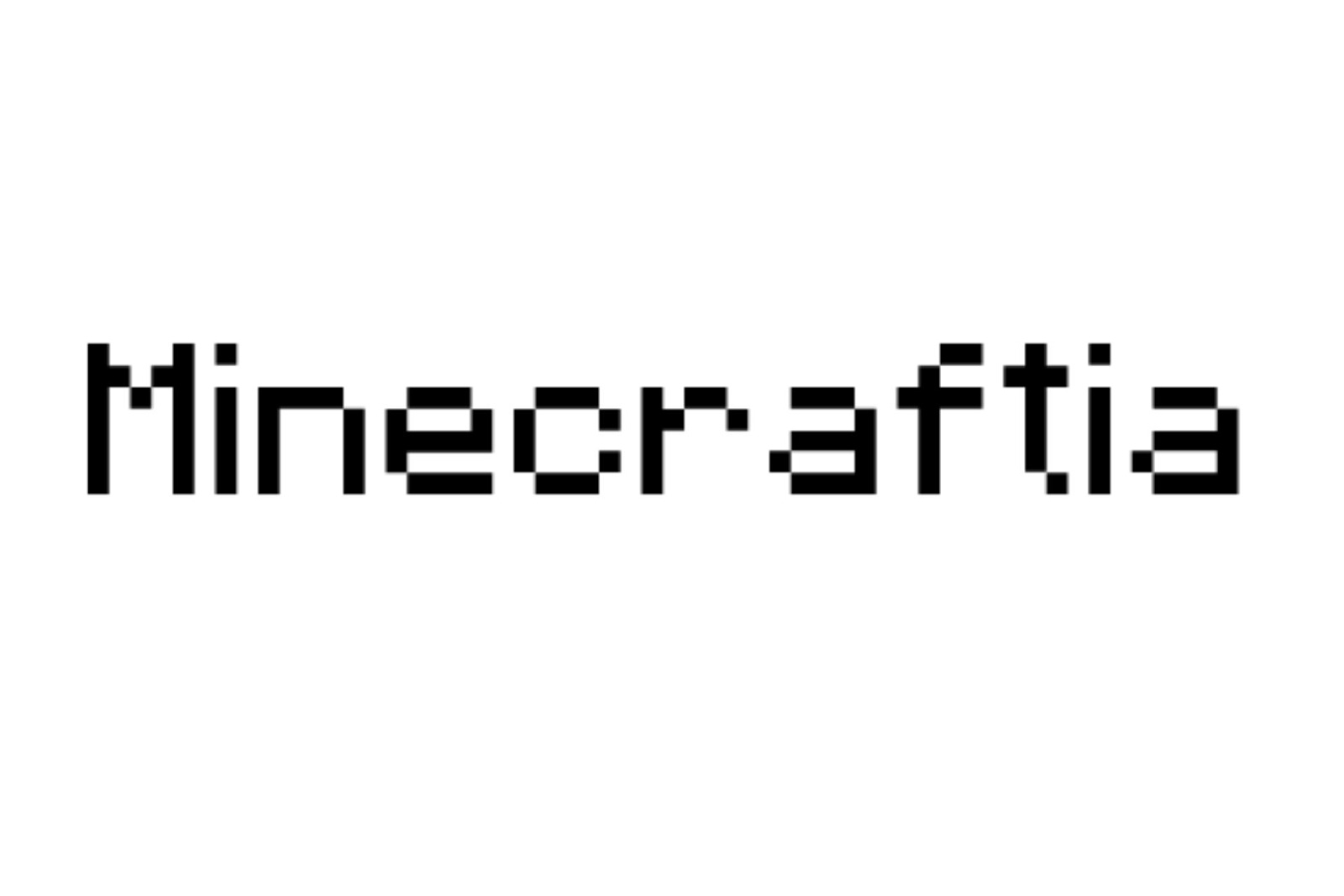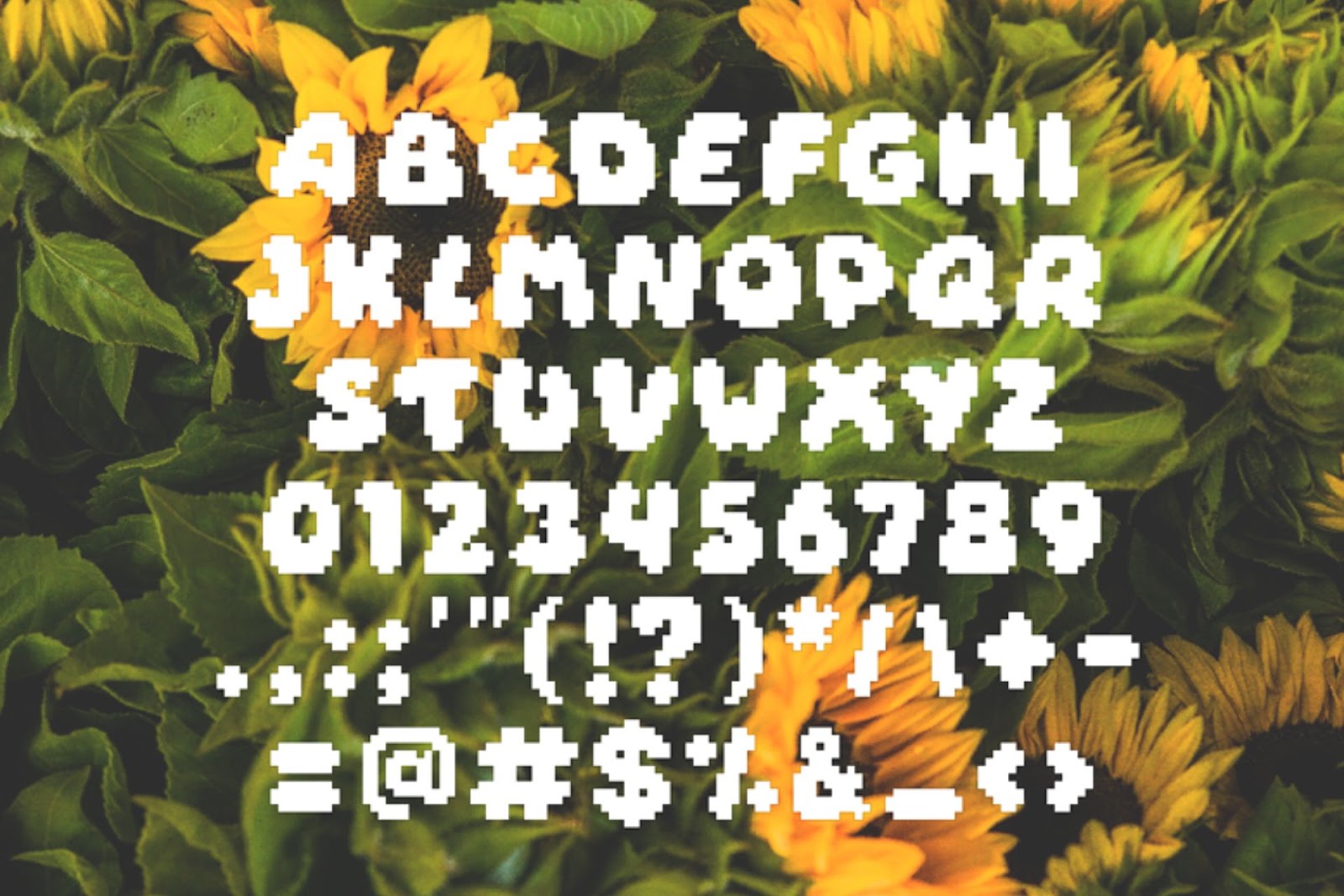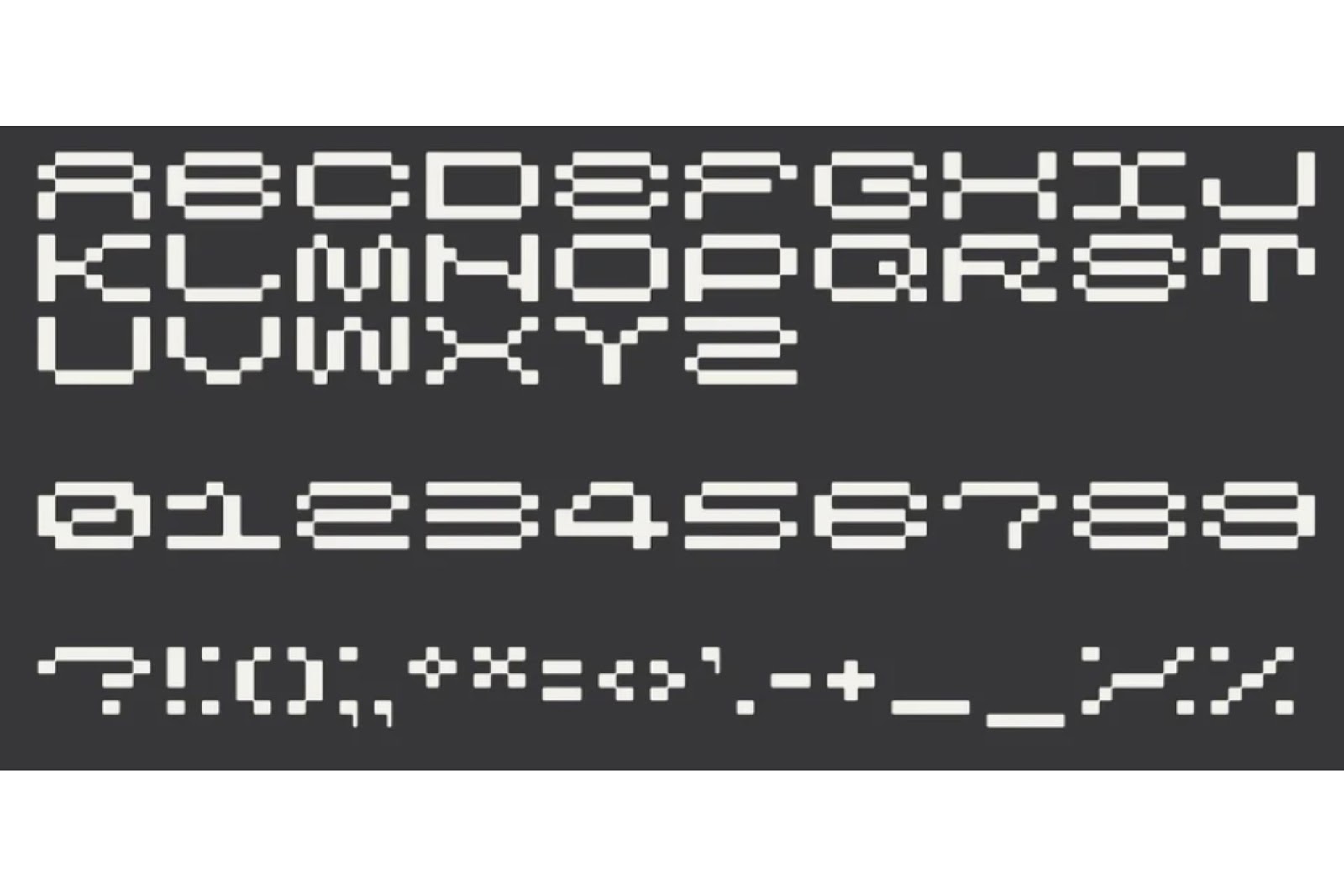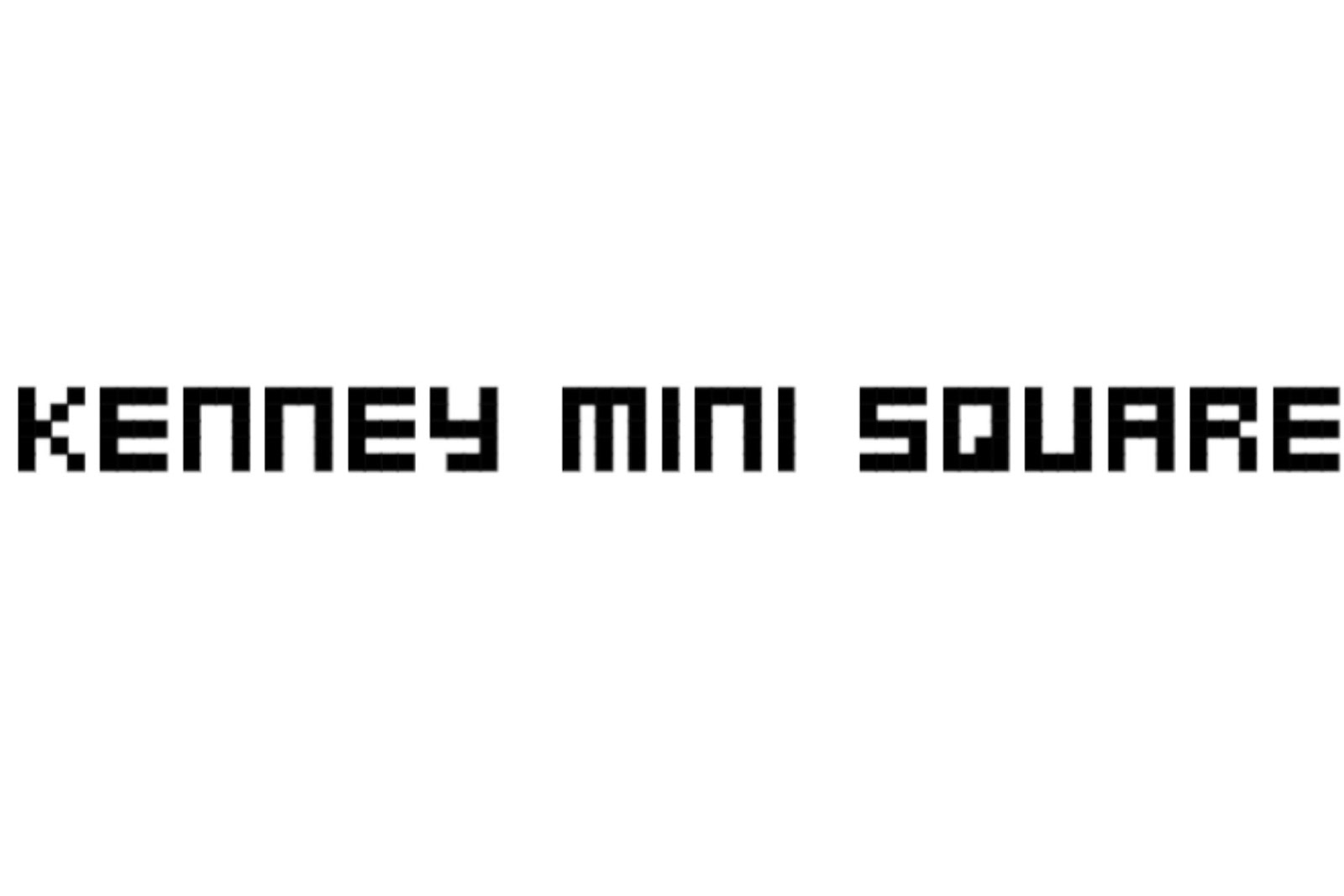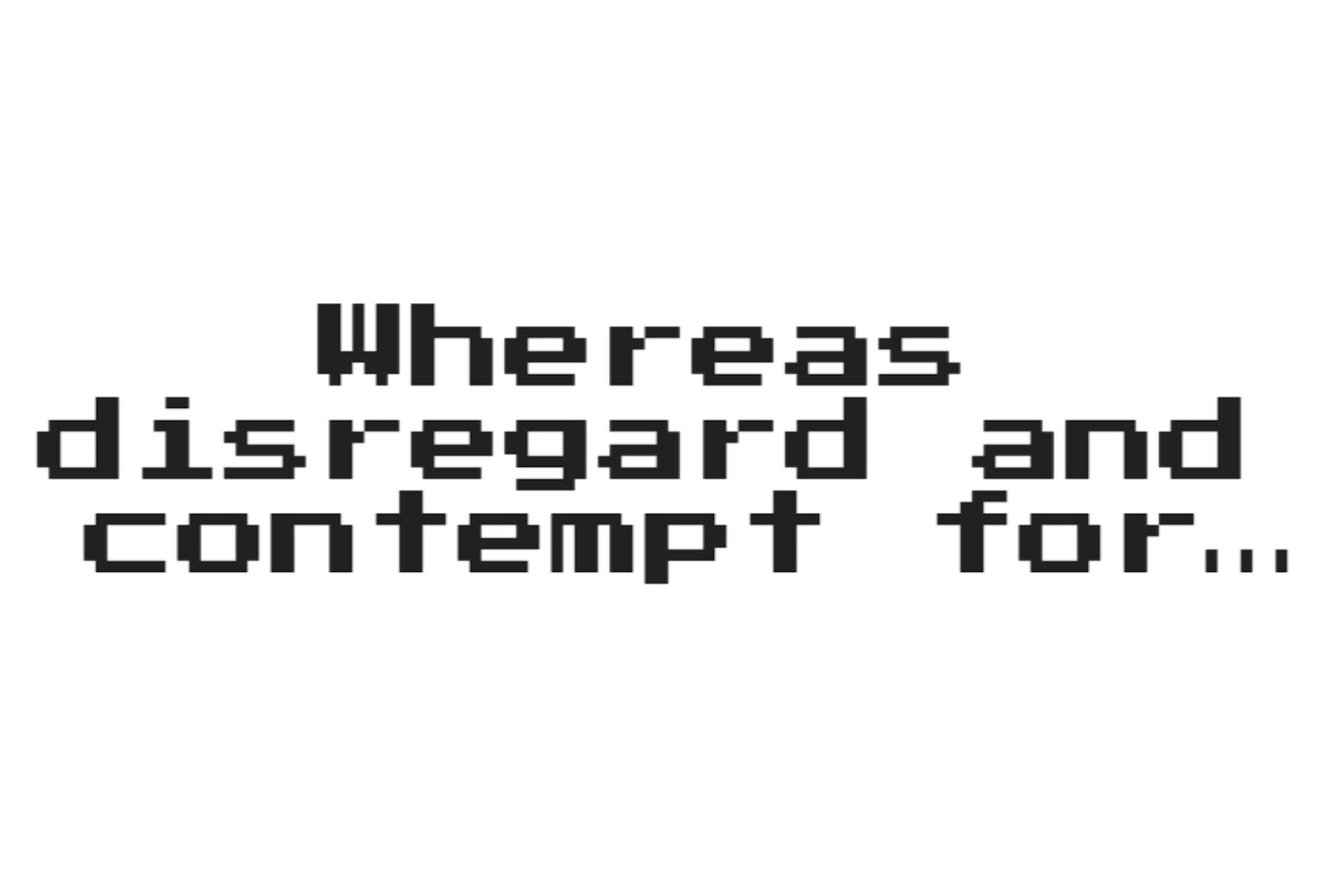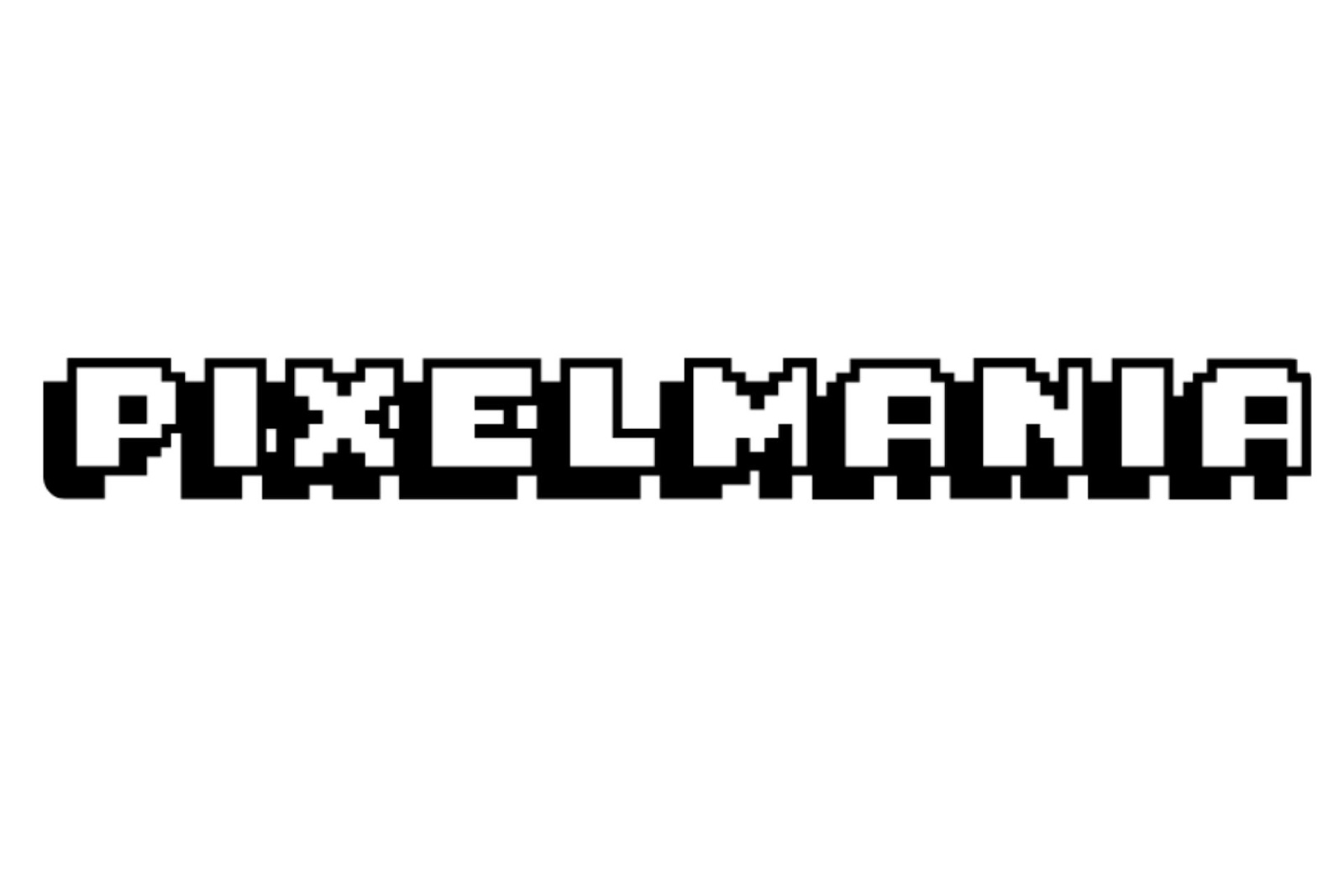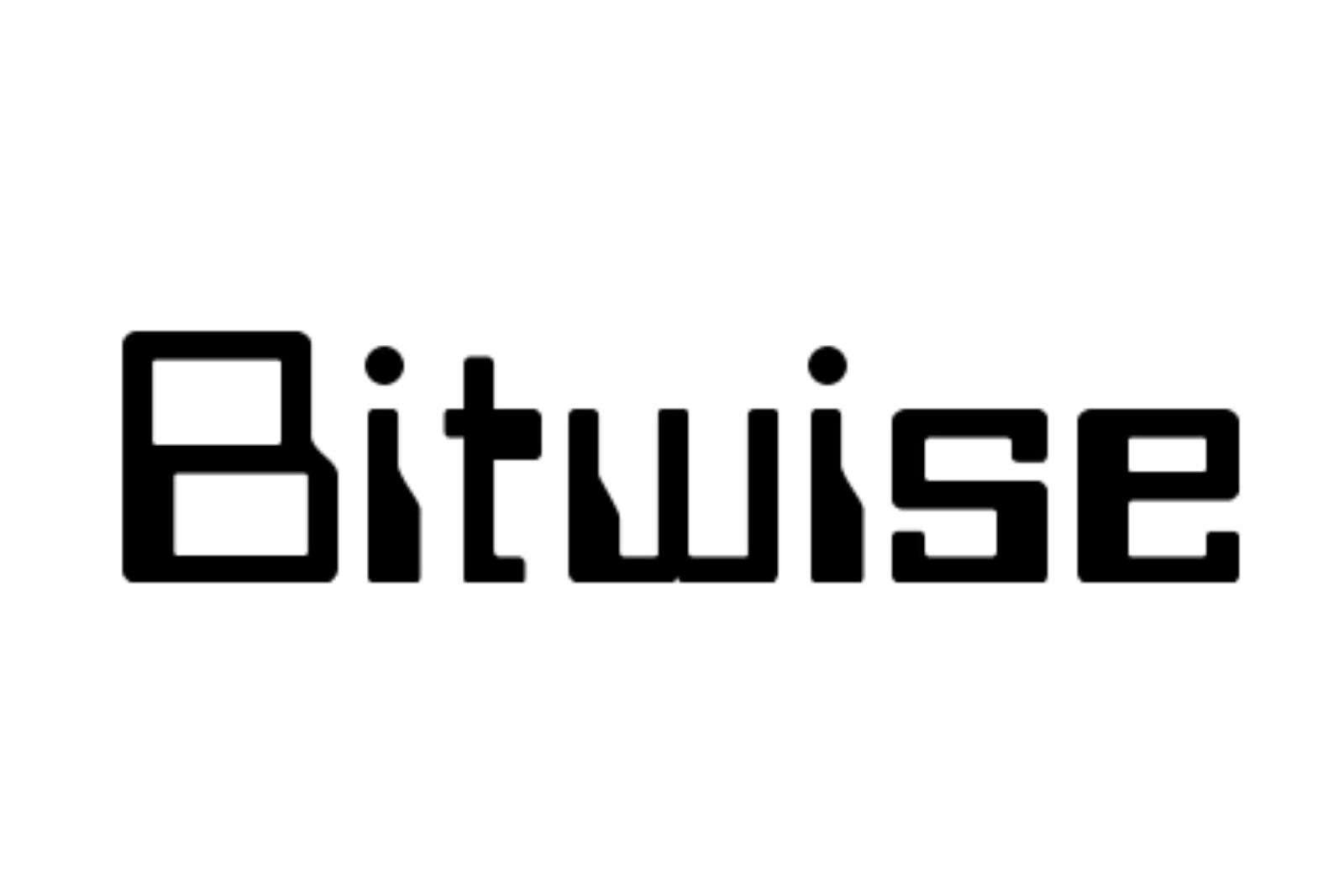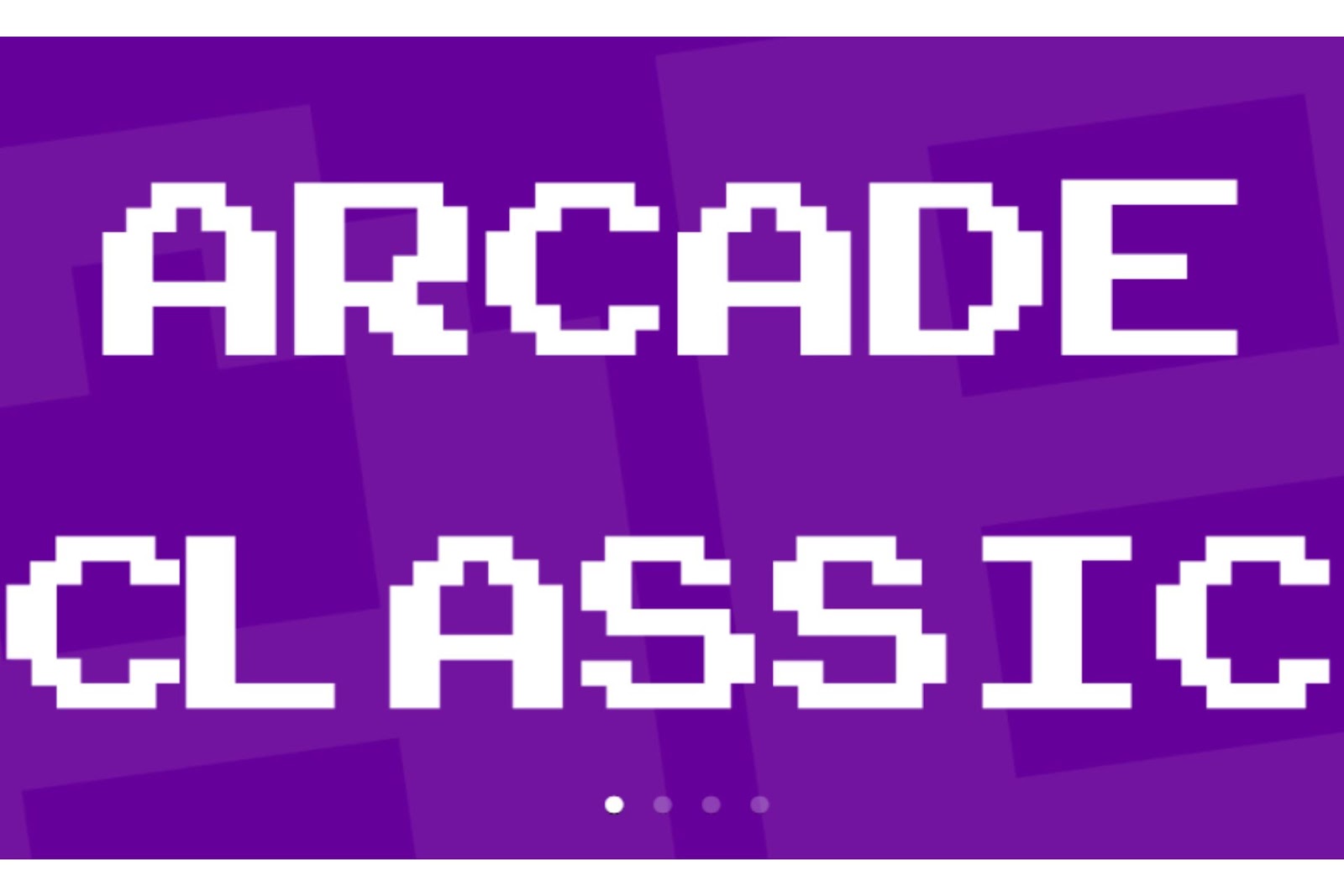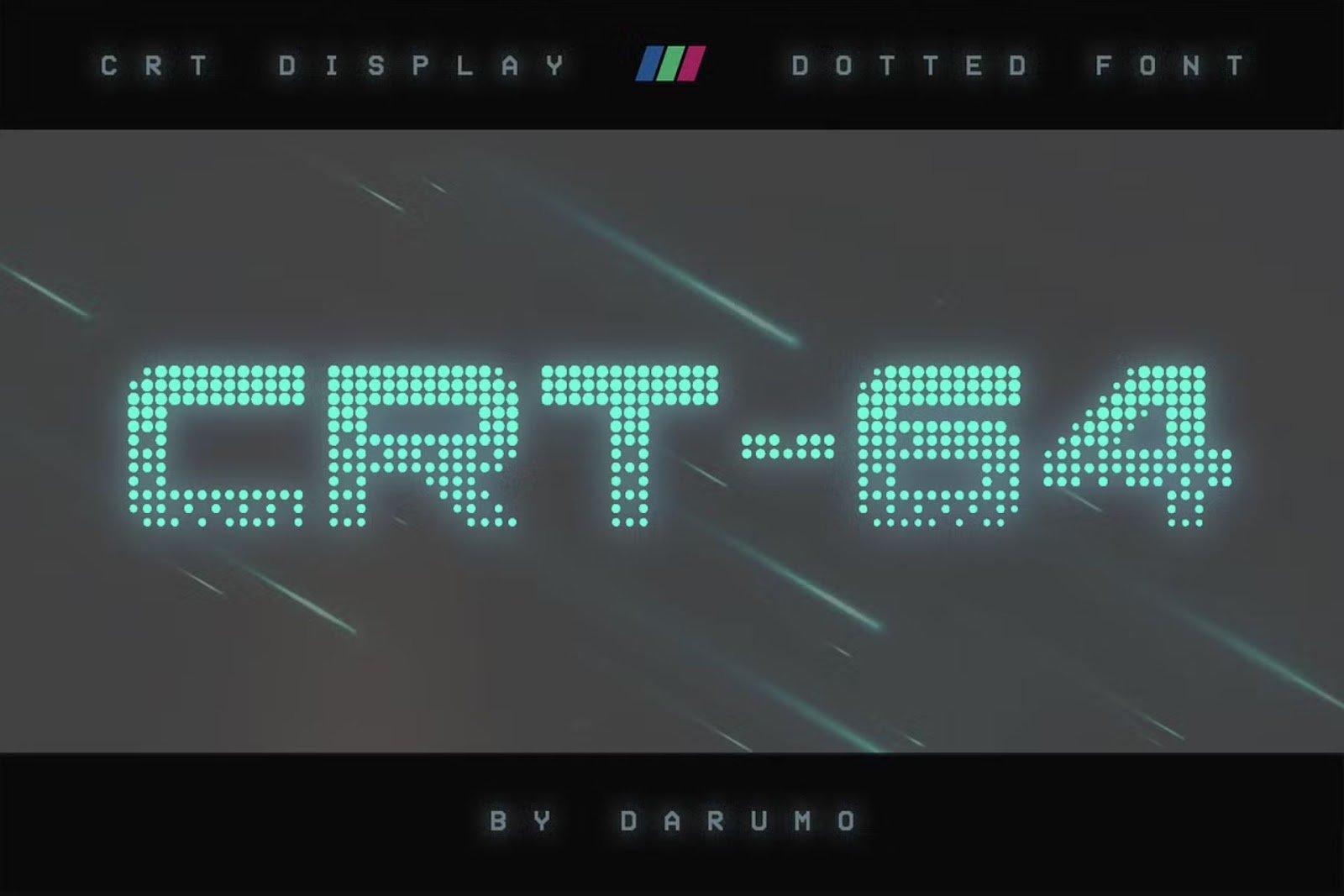
Pixel fonts are a must-have to capture the nostalgia of video games and computer graphics from the ‘80s and ‘90s. When working on a design project, the right font can set the tone and make your design pop.
However, pixel fonts can vary greatly in style and formatting. Some offer a clean, blocky look, while others have jagged edges and quirky letterforms. To find the perfect match, we have rounded up the best pixel fonts to enhance retro designs.
1. Press Start 2P
The Press Start 2P instantly brings back memories of classic arcade games. The font follows inspiration from the typography used in old-school video games, making it perfect for nostalgic branding or digital art projects that need an 8-bit aesthetic.
The blocky, monospaced letters give off a distinctly retro feel while also being excellent at maintaining viewer engagement. It is great for headers, UI elements and pixel-art-themed marketing materials.
Press Start 2P would work great for many types of design projects. For instance, using it for a retro-inspired website design or merchandise that caters to gamers is fitting.
2. R-P Font
This pixel font offers a futuristic twist, blending retro aesthetics with modern modular design. Traditional pixel fonts typically have sharp, rigid edges. However, R-P Font features a rounded, grid-based structure, making it feel softer and more adaptable to various digital applications.
Its highly stylized characters give off a cyberpunk or sci-fi vibe while keeping a classic arcade style. The bold, blocky letters are readable, making it a good choice for gaming projects, digital posters and futuristic branding.
R-P Font works excellently for sci-fi-themed branding and neon-inspired digital artwork. When using this font style, consider it for a retro-futuristic site or a cyberpunk-style graphic for a promotional event.
3. Minecraftia
For designers who love Minecraft’s blocky aesthetic, Minecraftia is the perfect pixel font to incorporate into projects. Inspired by the game’s typography, this font captures the rugged, pixelated look of the beloved sandbox world.
Minecraftia features sharp, blocky letterforms that resemble 8-bit and 16-bit graphics. Yet, it remains clean even at smaller sizes.
It is great for streaming overlays or YouTube thumbnails centered around pixel-based or voxel-style games. It also works well in invitations for retro-styled parties and Minecraft fan projects.
4. 8 Bit Wonder
8 Bit Wonder is a top choice for those who want their designs to embrace the bold and blocky look of 8-bit gaming fully. The font perfectly captures the chunky pixelation of old arcade games and early console graphics. Therefore, it makes a great option for digital designs that need a punchy, attention-grabbing font.
With its all-caps style and oversized pixels, 8 Bit Wonder instantly takes you back to the golden age of gaming. Its strong high-contrast letterforms make it the go-to for titles and logos, though it may be less suitable for body text due to its large pixel structure.
5. CRT-64 Dotted
Remember the look of vintage CRT monitors? Well, now designers can bring them back to life in their projects with this CRT-64 font. This font replicates the dotted pixel structure seen on computer screens in the ‘80s, giving designs a touch of classic tech.Â
CRT-64 stands out for its grid-based pixelation, which mimics how text appears on analog screens. This feature makes it suitable for futuristic, synth-wave and neon-heavy designs. It also works well against dark backgrounds with bold, glowing colors.
6. Arcade Classic
For designers looking for a true retro gaming look, Arcade Classic is a perfect example of the pixelated feel from arcades in the ‘80s. With its blocky, slightly jagged edges, this font embodies the nostalgia of quarter-fed machines and high-score battles.
Designed with bold, chunky letters, Arcade Classic is an excellent choice for titles and pixel-inspired branding. The slightly uneven look adds to its charm, giving designs an authentic, old-school feel. When designing a website or flyer with a retro gaming theme, this font will instantly set the mood.
7. Kenney Mini Square
Kenney Mini Square is a clean, structured pixel font with a minimalist touch. It has a square-based pixel grid that offers a retro RPG gaming style.
Unlike some highly stylized pixel fonts, Kenney Mini Square provides more clarity and geometric consistency. Therefore, it could work well for display and text elements. Although the font features a blocky structure, the lettering is also refined. It is a cleaner version than most pixel fonts, making it best for digital advertisements and marketing materials.
8. Bitwise
Bitwise is a sleek font with a futuristic but retro look. It blends pixel-based design with a modern touch, making it perfect for tech brands and websites with a sci-fi theme.
Bitwise is unique because its minimalist, geometric letterforms give it a distinct cyberpunk aura. The subtle cutouts and streamlined shapes make it more dynamic than traditional blocky pixel fonts. As such, it offers a good balance between retro and contemporary design.
Each font on this list offers a unique take on pixel-based typography. Whether a design needs a clean pixel font or a chunky, playful design, there is a perfect match for every project.